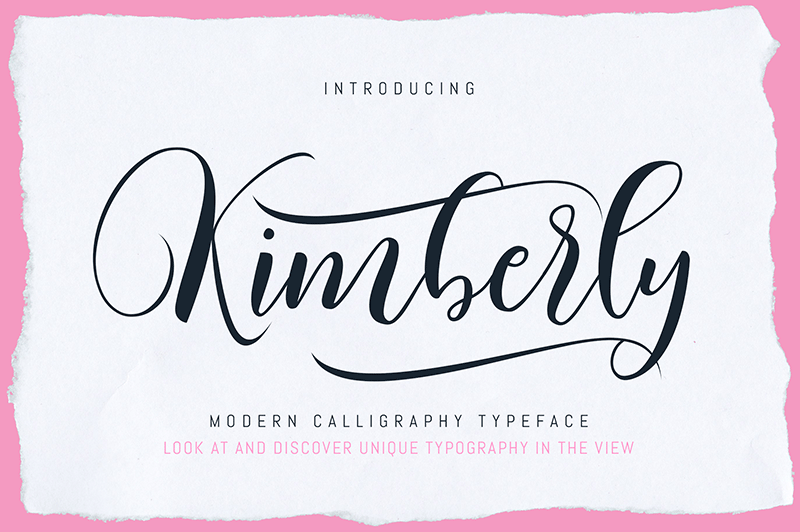
Free Kimberly Wedding Script Font
Take a look at this miraculous free kimberly wedding script font. Dafont has created this amazing and beautiful typeface. Amaze your fellow designers and create stunning designs with this fancy font.